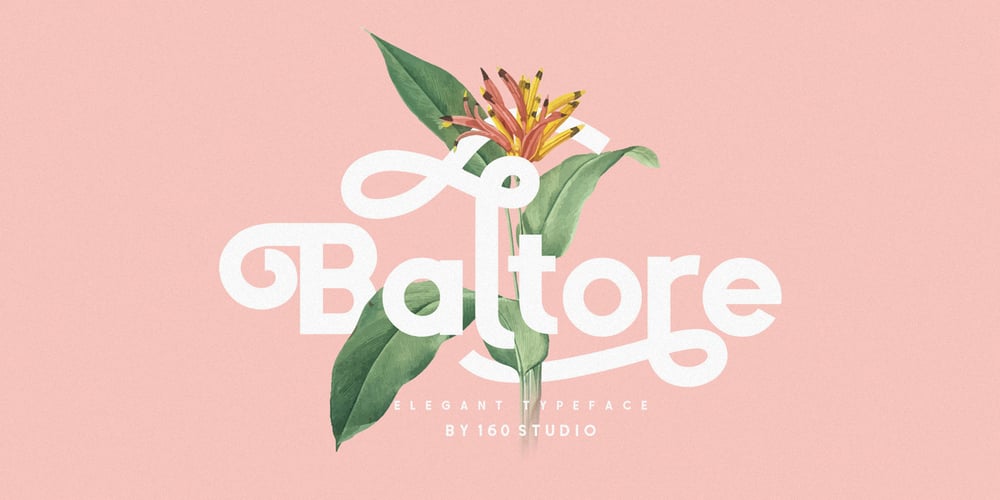
Baltore Font Family was designed by Supar Wanto and published by 160 Std. Baltore contains 8 styles and family package options. Introducing BALTORE – Your Go-To Simple and Modern Typeface! Elevate your design projects with BALTORE, a versatile font seamlessly transitioning between simplicity and unique complexity, offering an array of alternate characters.Perfect for headlines, logo branding, quotes, posters, products, and more, BALTORE brings a touch of modernity to your creative ventures.